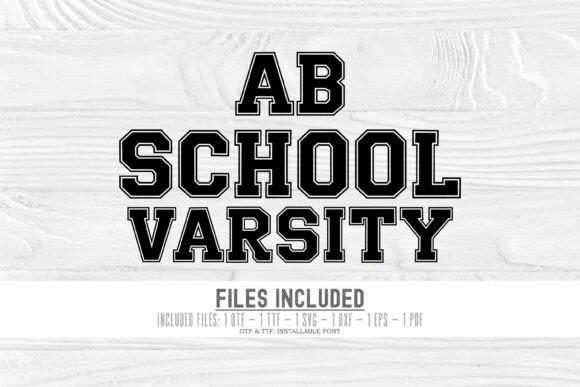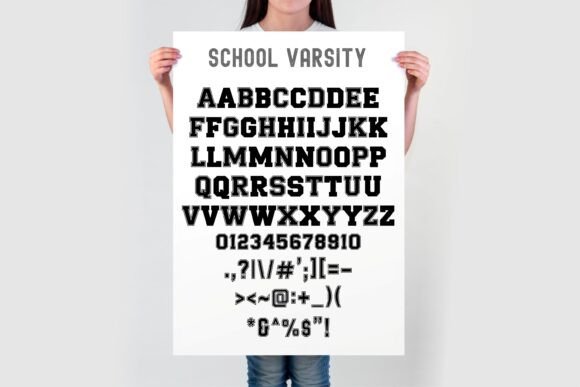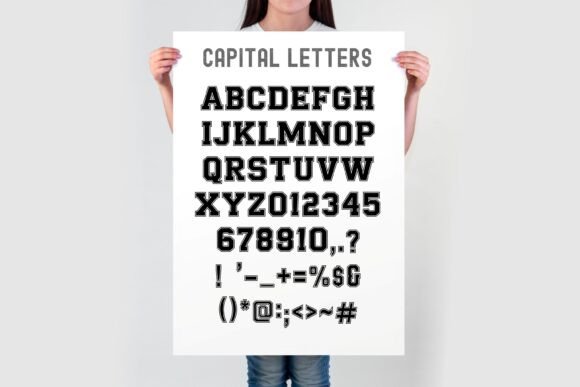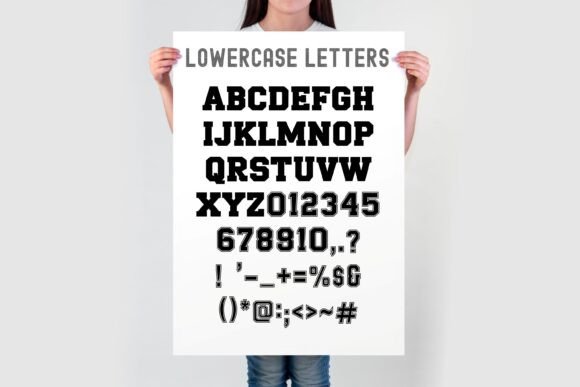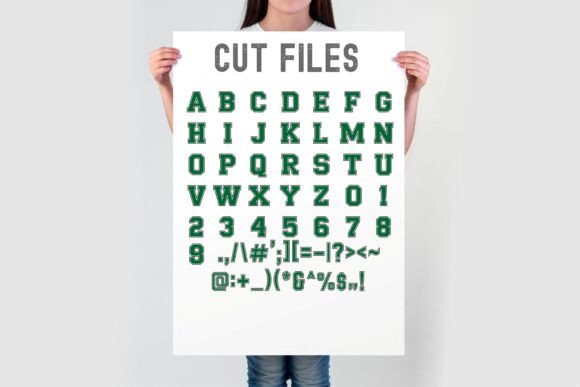
Introduction to School Varsity Font
Do you remember the thrill of designing your school’s sports team logo or creating custom t-shirts for your favorite team? For many of us, designing with a bold and classic varsity style is a nostalgic and exciting experience. The “School Varsity Font” is a high-quality design resource that brings back those memories and provides endless possibilities for your creative projects. This versatile typeface features bold uppercase letters with a striking outline and solid lowercase characters, perfect for adding a dynamic touch to your designs.
Key Features of School Varsity Font
- High-quality font designed for creative projects, ideal for school and sports-themed designs.
- Unique characteristics: bold and modern design, perfect for creating eye-catching school and sports-themed graphics.
Honest Review: School Varsity Font
I recently stumbled upon the School Varsity Font while searching for a unique design resource for a creative project. The first thing that caught my eye was its high quality and versatility. With a transparent background, it’s perfect for overlaying on images or using as a standalone element in your design.
- ✨ Unique and bold style that adds a touch of personality to any design
- ✨ Wide range of weights and styles to choose from, making it suitable for various creative projects
- ⚠️ The font may not be suitable for body text due to its bold and playful nature
- ⚠️ Some users may find the font too flashy or attention-seeking, depending on the design context
Overall, I’m impressed with the School Varsity Font and would definitely recommend it as a design resource for creative projects that require a bold and eye-catching element. Just be mindful of its limitations and use it thoughtfully to avoid overwhelming your design.
School Varsity Font is a versatile font that can be used in a variety of creative projects, including posters, flyers, and social media graphics. Its clean and modern design makes it an excellent choice for any project that requires a high-quality, professional look.